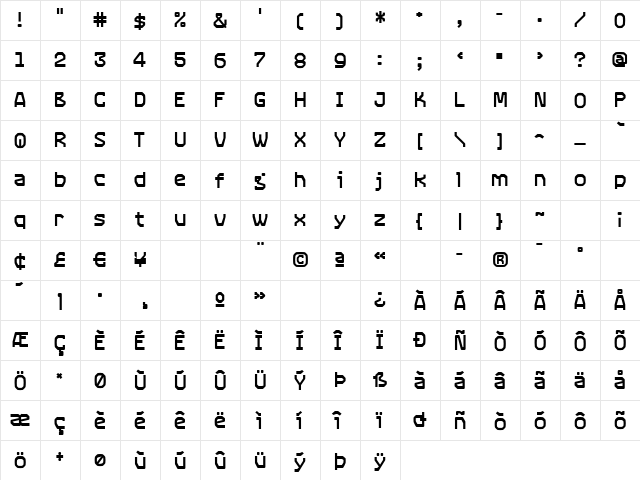
RangeBold Regular Font Preview
RangeBold Regular
RangeBold Regular Font Details
Design Context for RangeBold Typeface
RangeBold offers clean, dependable letterforms without strong stylistic allegiance, making it a practical choice for designers who need flexibility. The heavy weight commands attention and anchors typographic hierarchies.